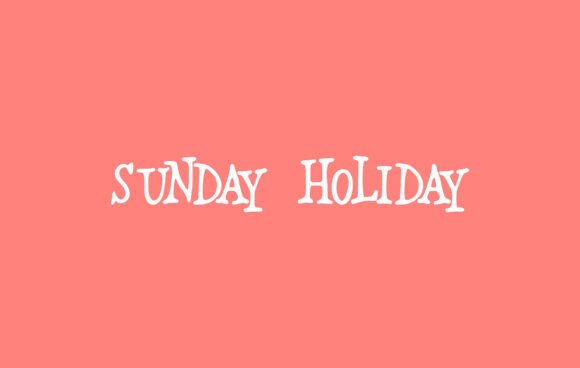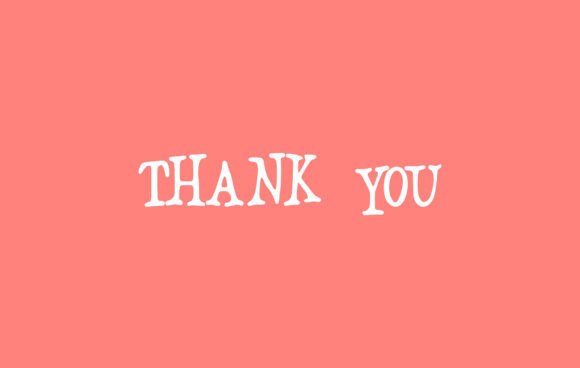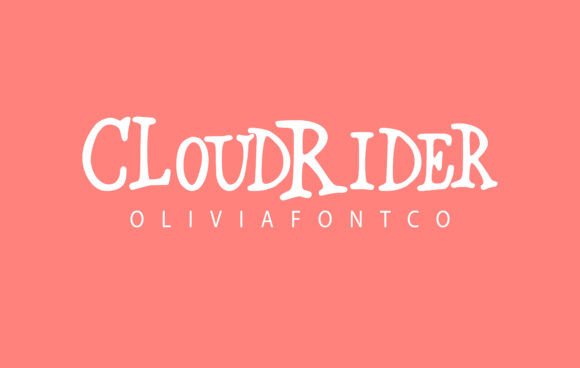
Introducing Cloudrider Font: Add a Touch of Whimsy to Your Designs
Are you tired of using the same old fonts in your designs? Do you want to add a touch of playfulness and charm to your projects? Look no further than Cloudrider Font, a unique and eye-catching typeface that’s perfect for storybook titles, invitations, and whimsical branding.
What is Cloudrider Font?
Cloudrider Font is a modern serif font that features playful, bouncy serifs with irregular strokes. This distinctive design gives the font a hand-crafted charm that’s sure to make your projects stand out. The font’s irregular strokes add a touch of whimsy and personality to your text, making it perfect for designs that need a bit of flair.
Key Features of Cloudrider Font
- Playful, bouncy serifs: Cloudrider Font’s serifs are designed to be playful and bouncy, giving your text a lively and energetic feel.
- Irregular strokes: The font’s irregular strokes add a touch of hand-crafted charm to your text, making it perfect for designs that need a personal touch.
- Whimsical feel: Cloudrider Font has a distinctly whimsical feel that’s perfect for storybook titles, invitations, and other designs that need a touch of magic.
- Easy to read: Despite its playful design, Cloudrider Font is easy to read, making it perfect for use in a variety of design projects.
Uses for Cloudrider Font
Cloudrider Font is a versatile typeface that can be used in a variety of design projects, including:
- Storybook titles: Cloudrider Font is perfect for use in storybook titles, adding a touch of whimsy and magic to your storybook designs.
- Invitations: The font’s playful design makes it perfect for use in invitations, adding a touch of personality to your event invitations.
- Whimsical branding: Cloudrider Font is ideal for use in whimsical branding projects, such as logos, packaging, and advertising.
- Signage: The font’s bold design makes it perfect for use in signage, adding a touch of personality to your signs and displays.
Benefits of Using Cloudrider Font
There are many benefits to using Cloudrider Font in your design projects, including:
- Unique design: Cloudrider Font has a unique design that’s sure to make your projects stand out.
- Versatile: Cloudrider Font can be used in a variety of design projects, from storybook titles to signage.
- High-quality: The font is high-quality and designed to look great in a variety of sizes and resolutions.
Tips for Using Cloudrider Font
Here are a few tips for using Cloudrider Font in your design projects:
- Use it sparingly: Cloudrider Font is a bold font, so it’s best to use it sparingly to add emphasis to your text.
- Pair it with a simple font: Cloudrider Font looks great when paired with a simple font, such as a sans-serif font.
- Experiment with different sizes: The font looks great in a variety of sizes, so don’t be afraid to experiment to find the perfect size for your project.
Cloudrider Font is a unique and eye-catching typeface that’s perfect for designers and crafters who want to add a touch of whimsy to their projects. With its playful, bouncy serifs and irregular strokes, this font is sure to make your projects stand out. Whether you’re designing storybook titles, invitations, or whimsical branding, Cloudrider Font is a great choice.